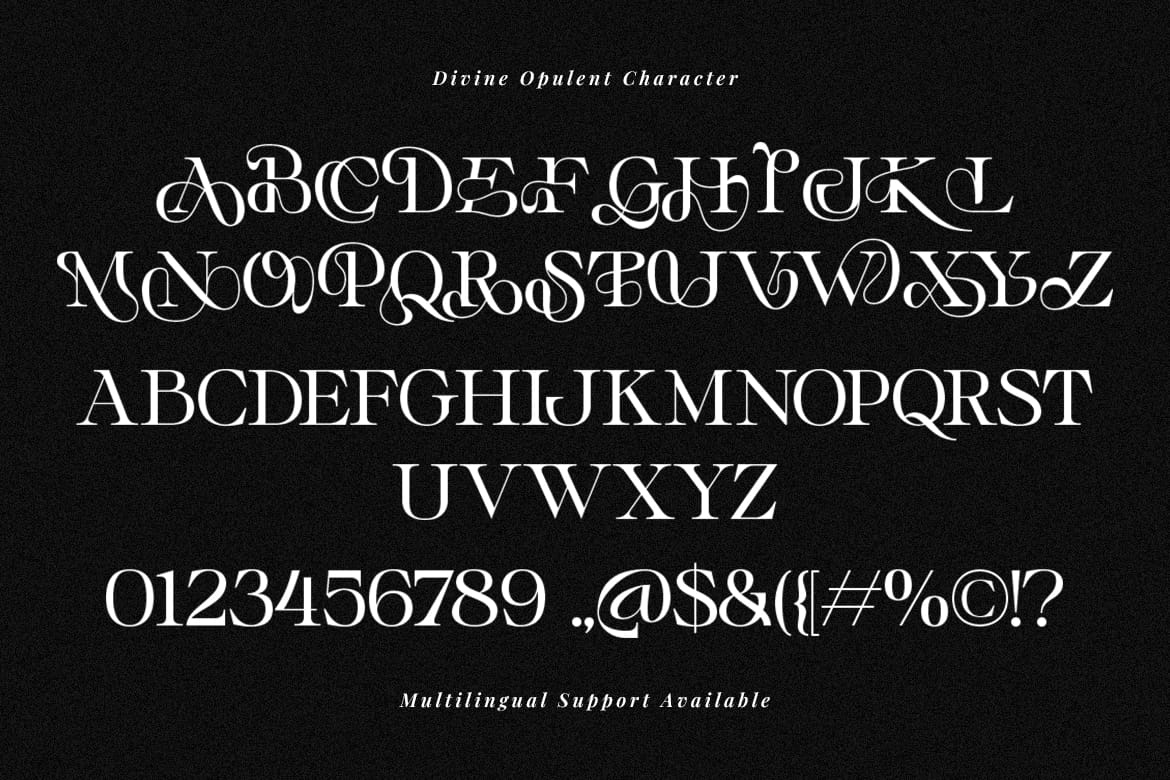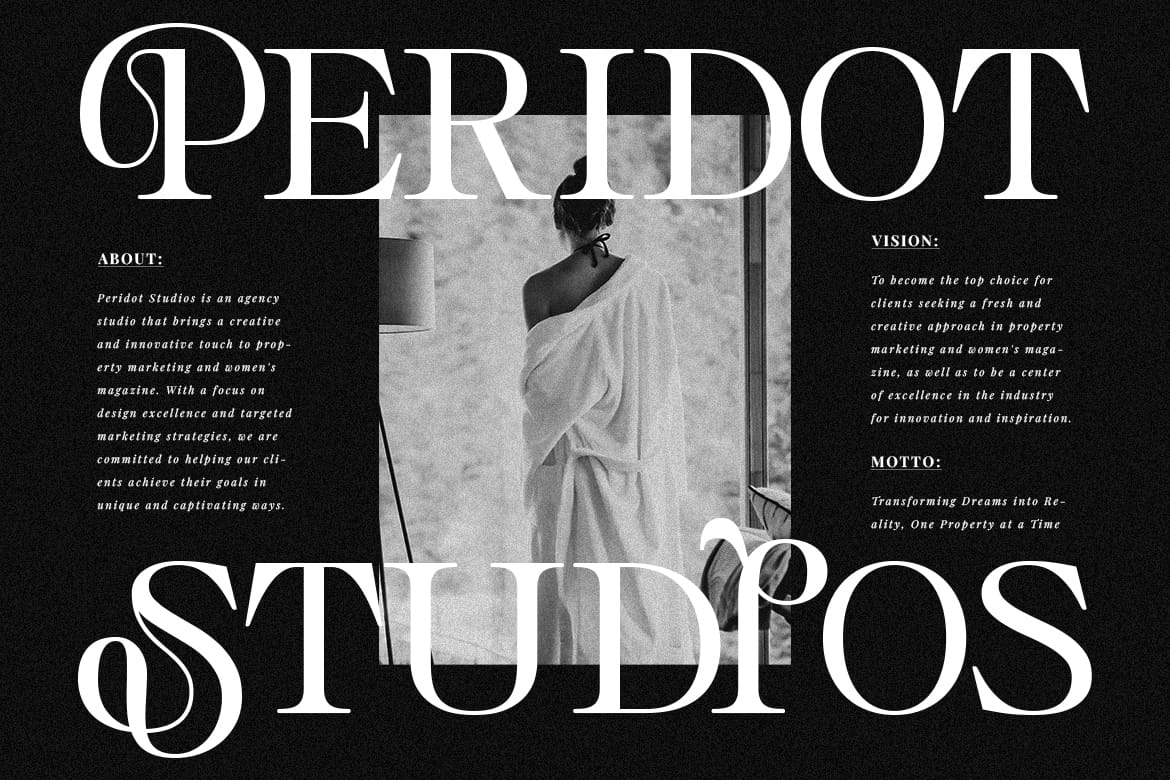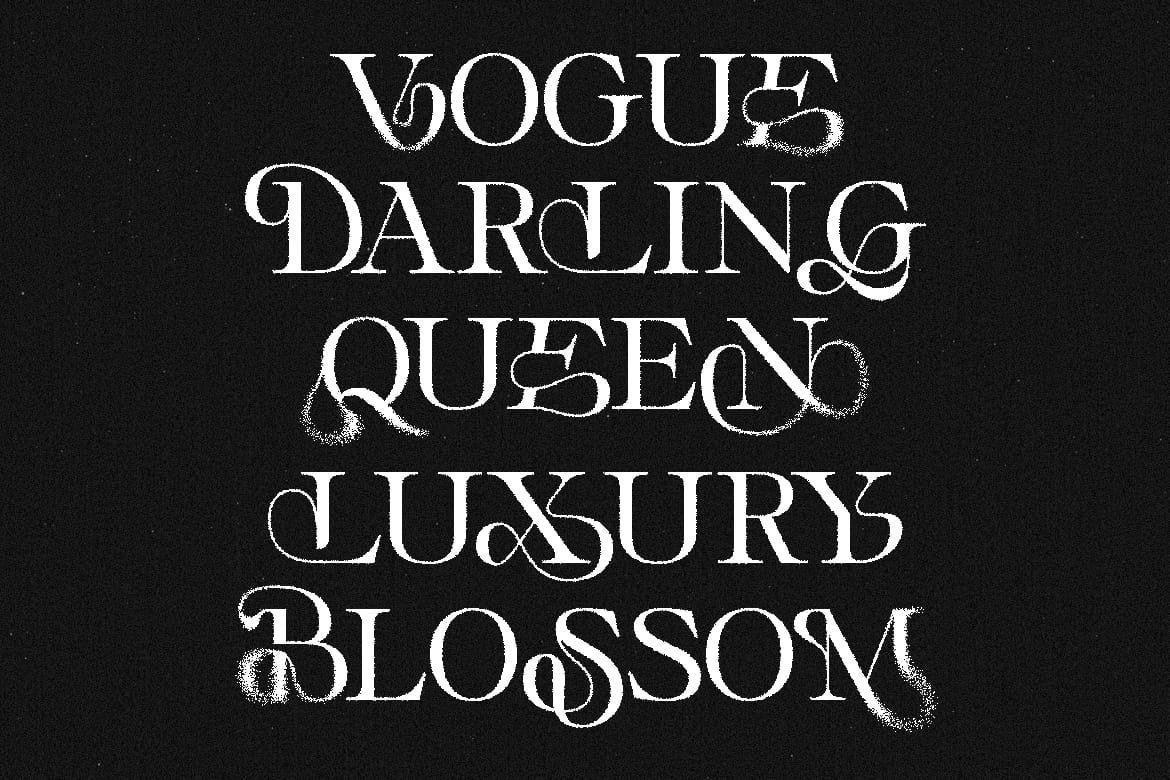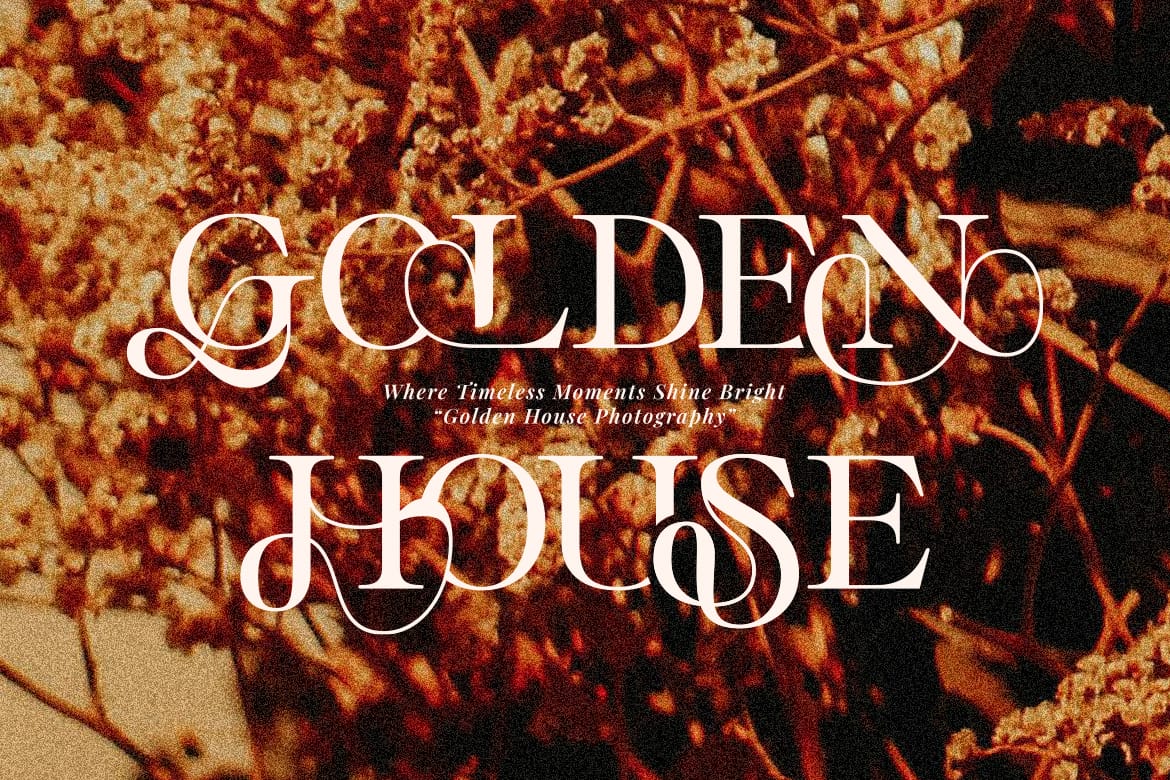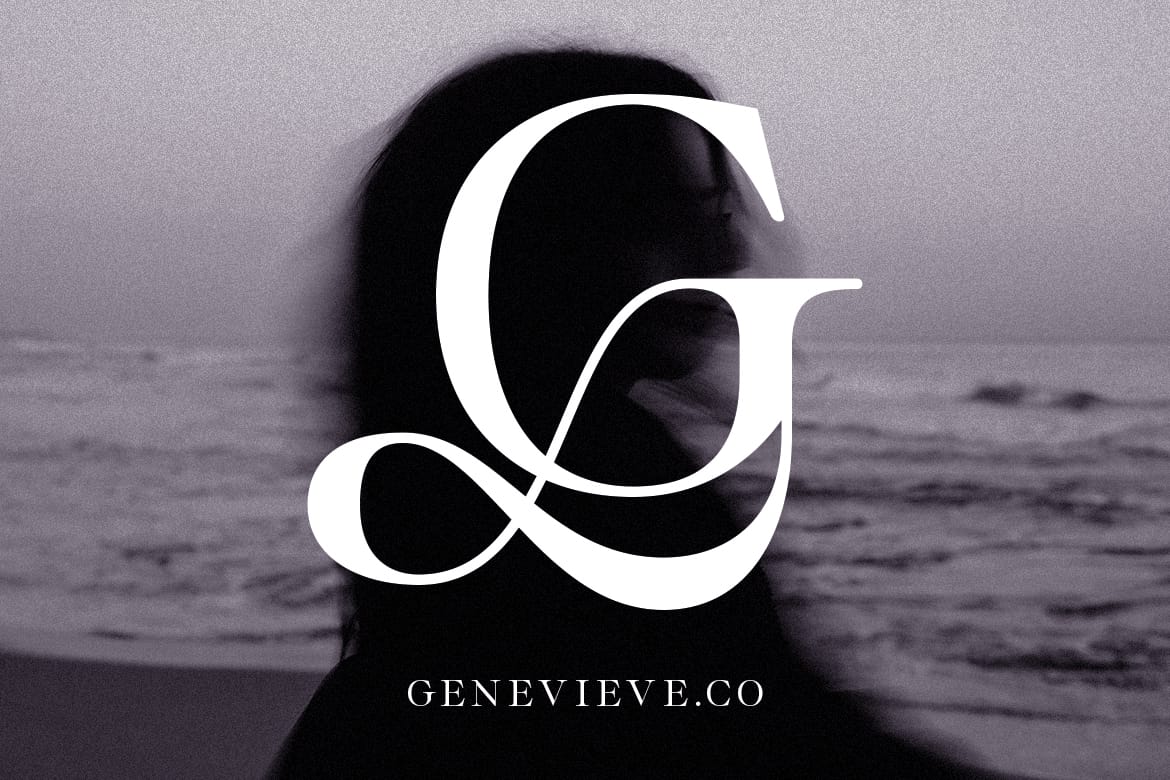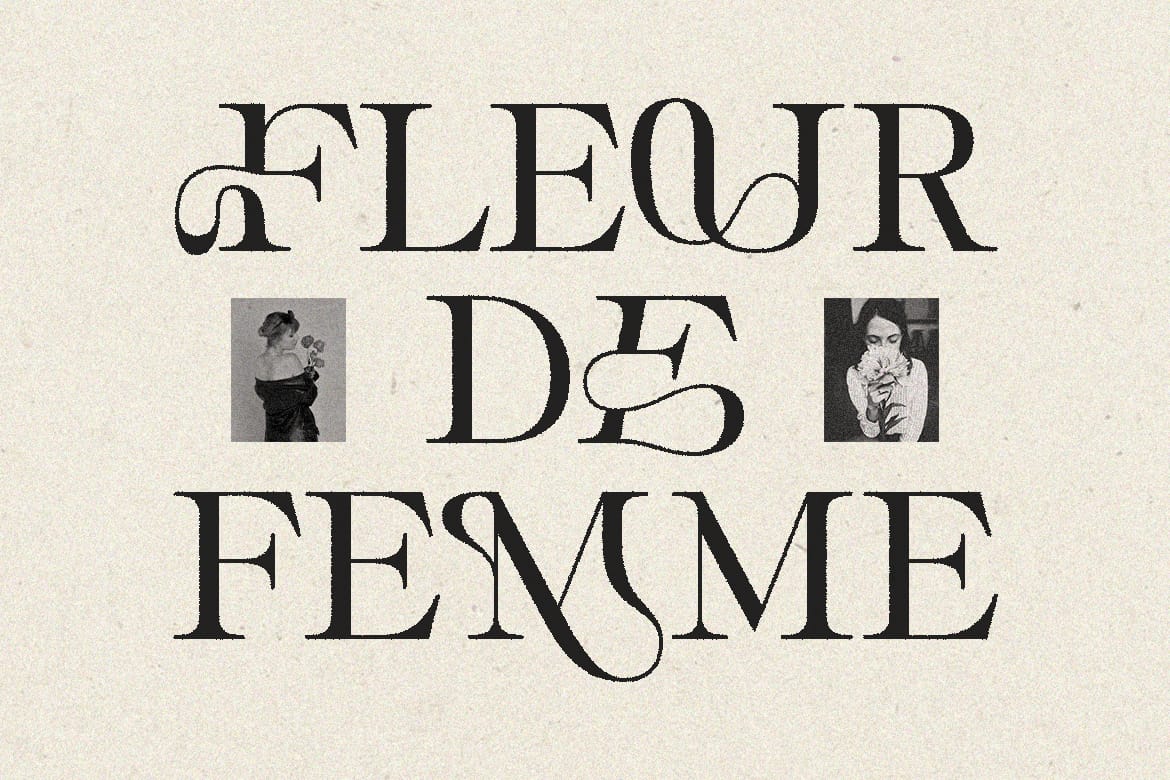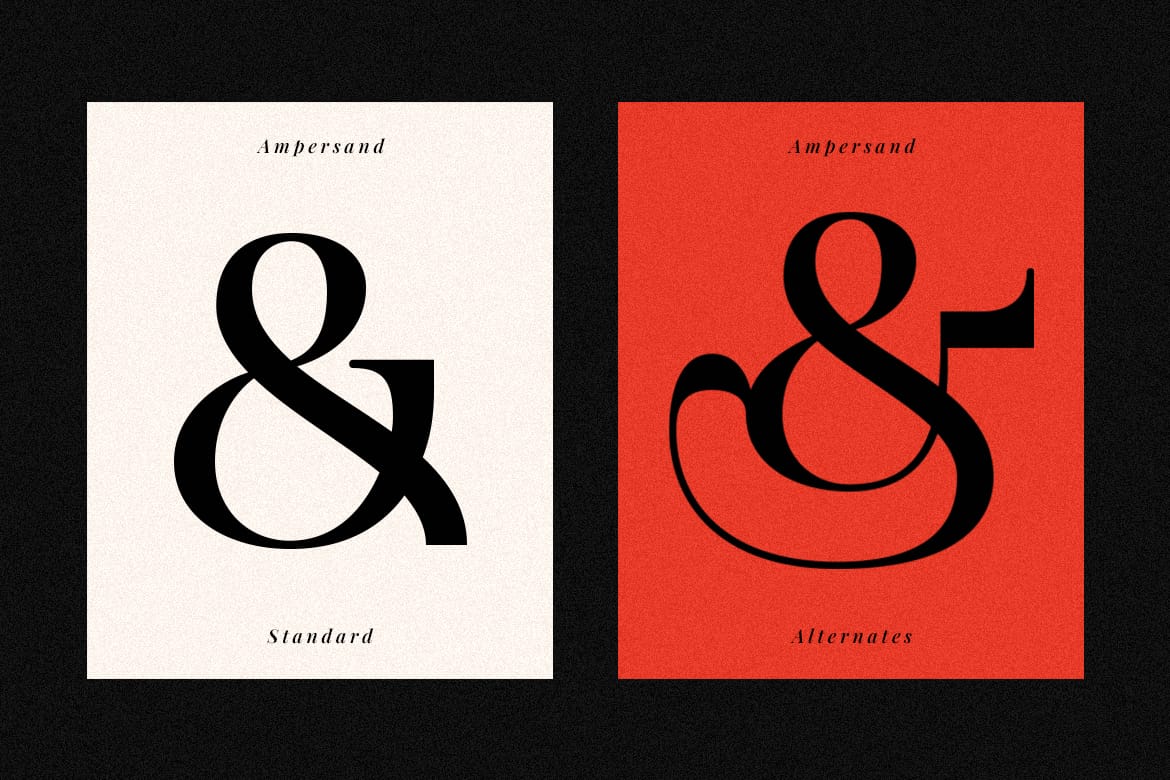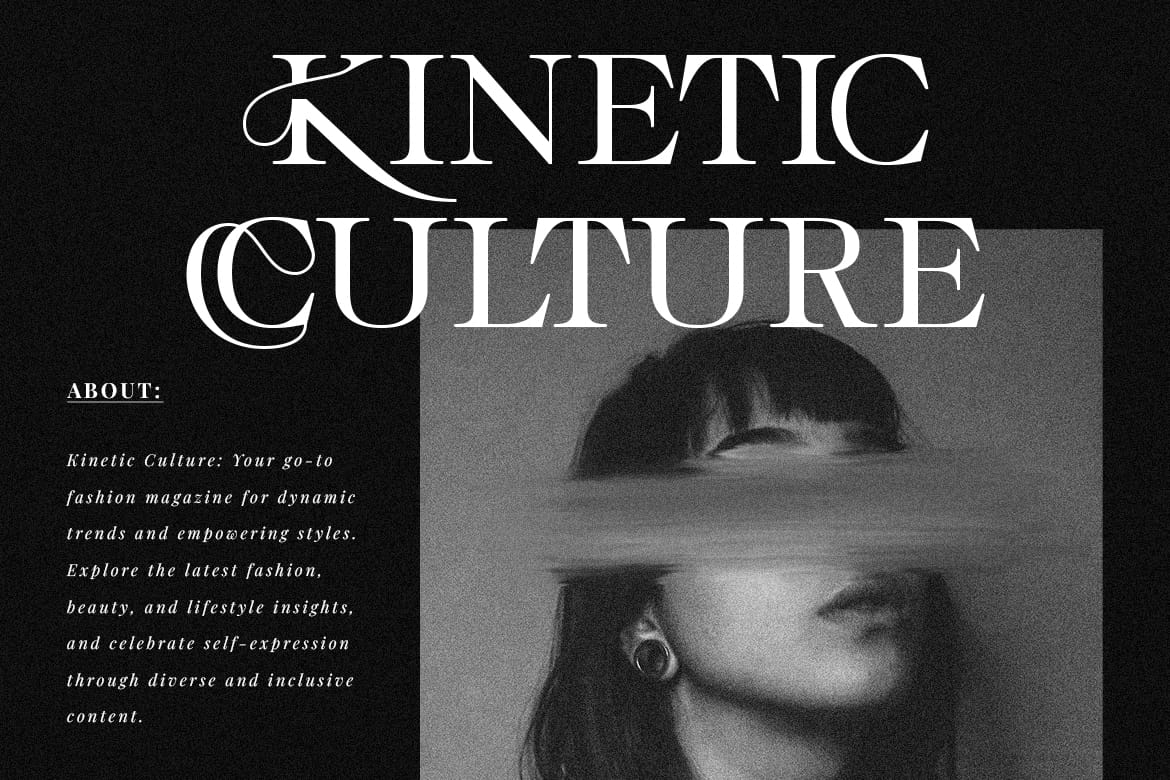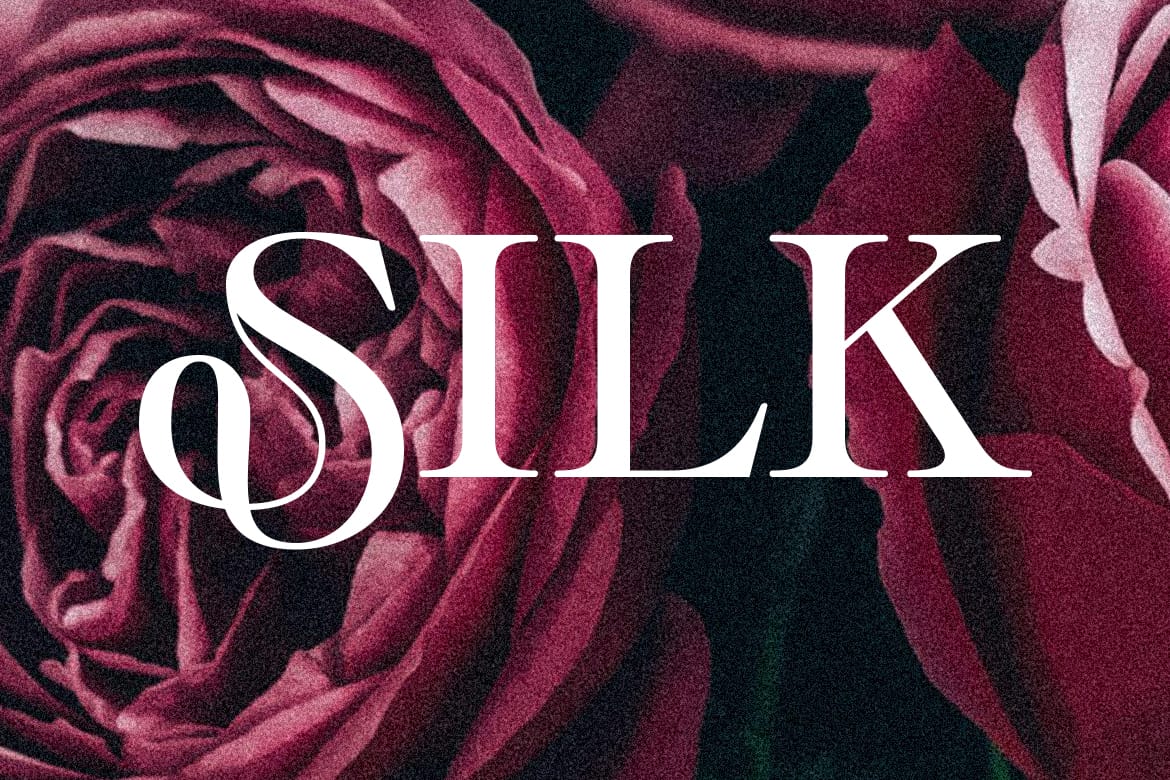
Divine Opulent is a serif display font that mixes and matches different uppercase and lowercase letters. This is where the aesthetic value is. It is very possible to design posters, logos, branding and so on. Play with these letters!
Features: Uppercase, Lowercase, Numeral, Punctuation & Multilingual.
- Mix-and-match serif display font